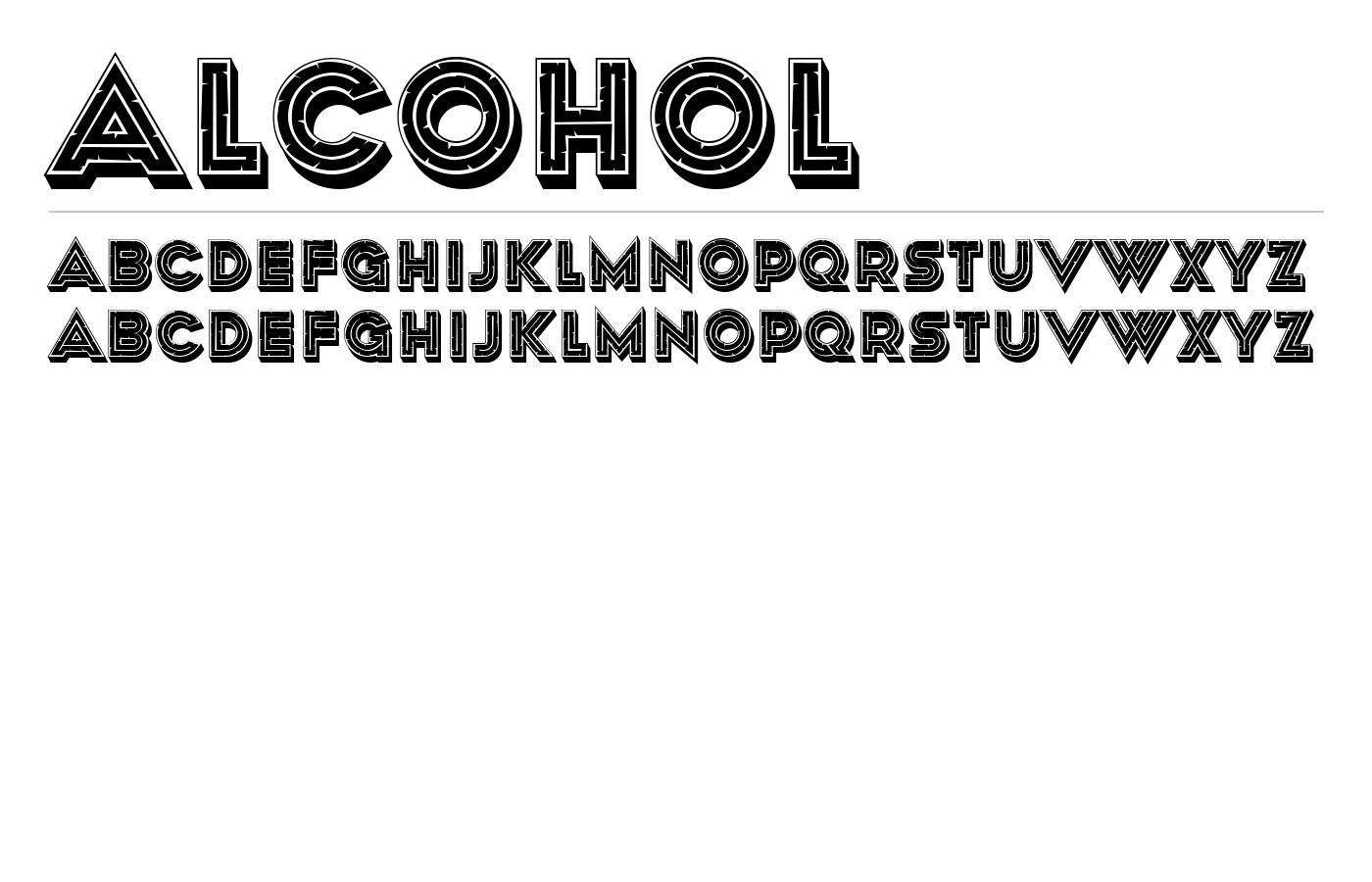
Alcohol Font is a bold and decorative sans serif typeface with a playful, layered 3D effect that gives it a vintage, handcrafted feel. Its strong geometric letterforms combined with intricate line detailing make it ideal for eye-catching headlines, logos, and packaging that need a lively, retro vibe. This font works best in display settings where its unique style can stand out and add a fun, dynamic personality.
Alcohol Font
About Alcohol Font
| Font family | Alcohol Font |